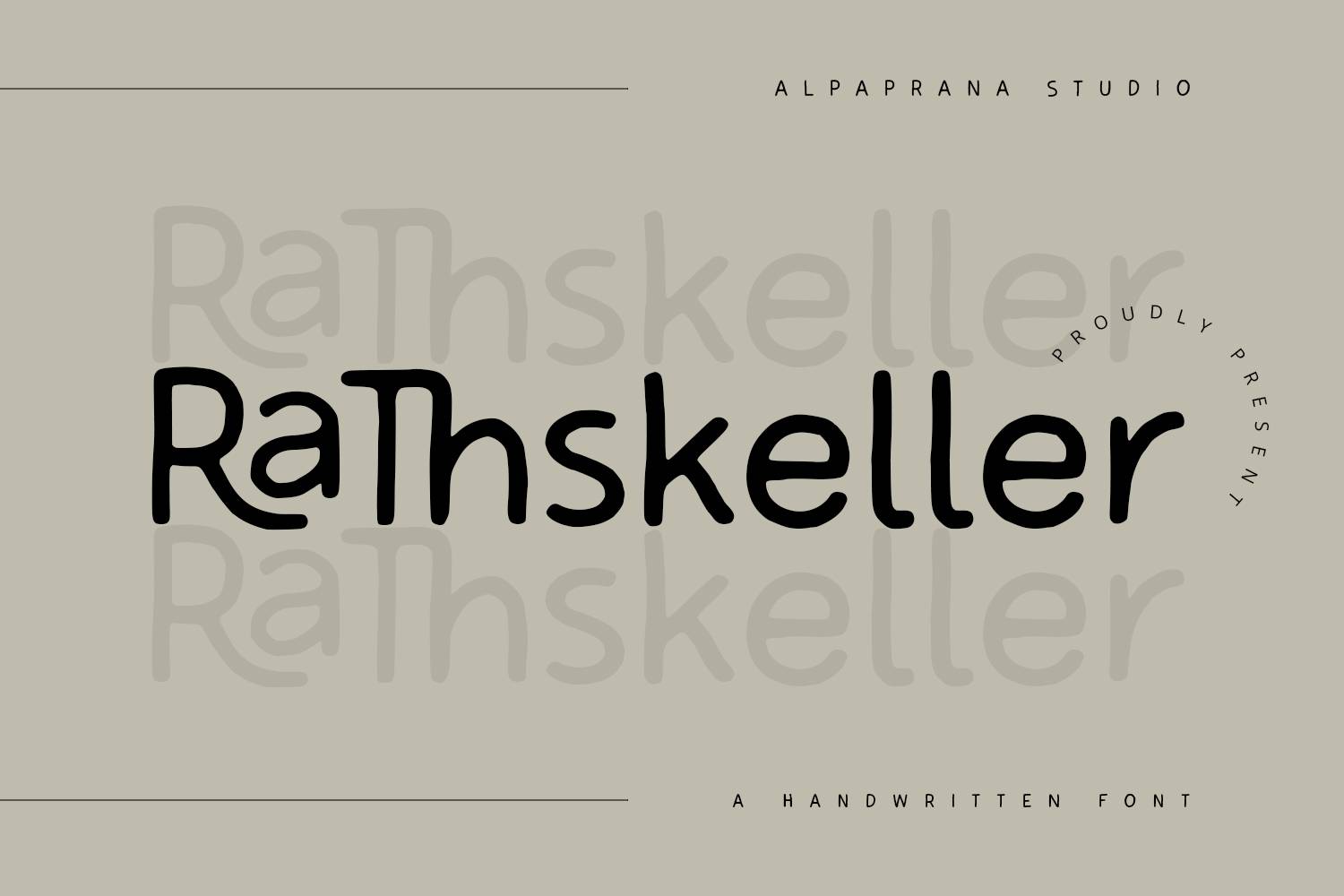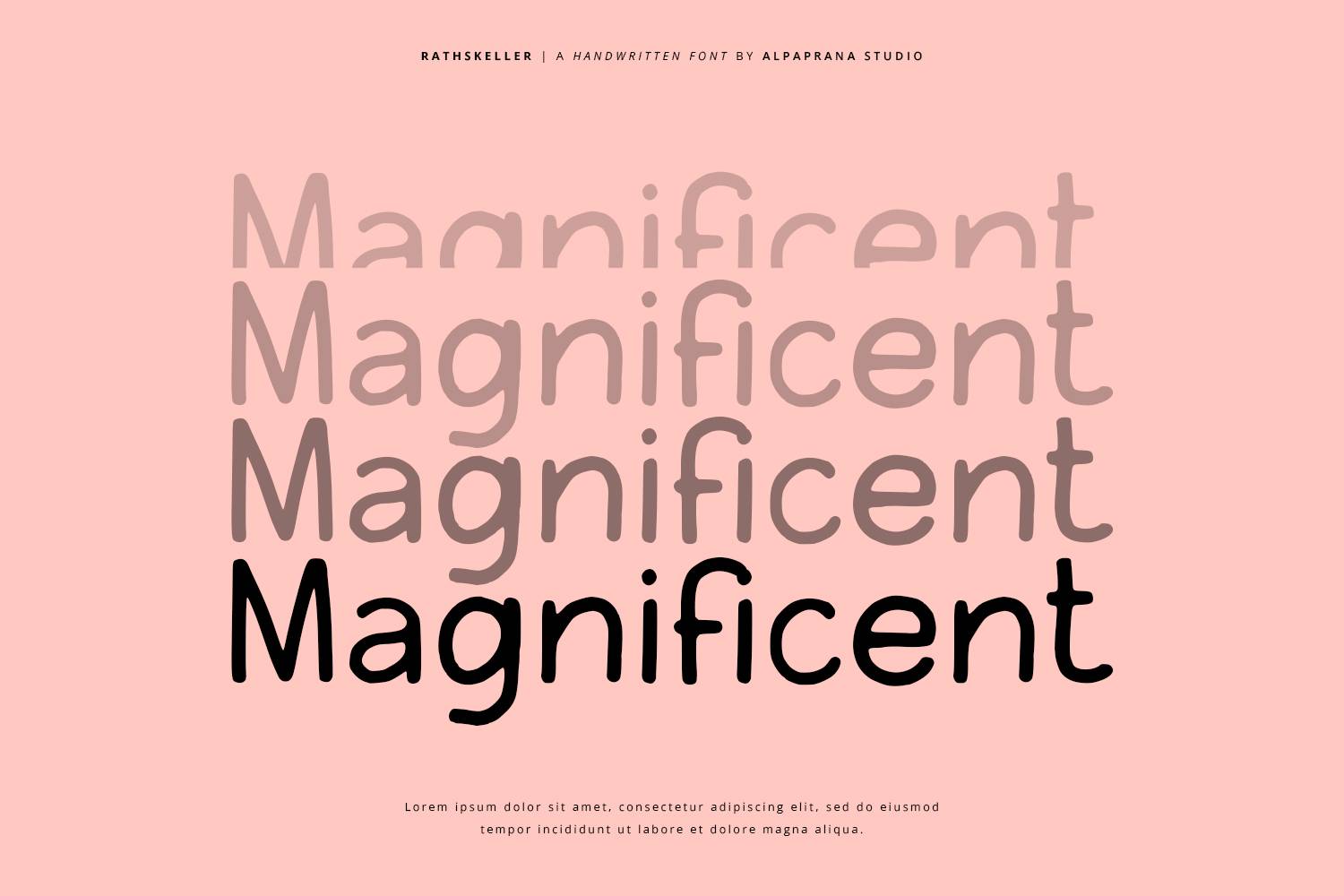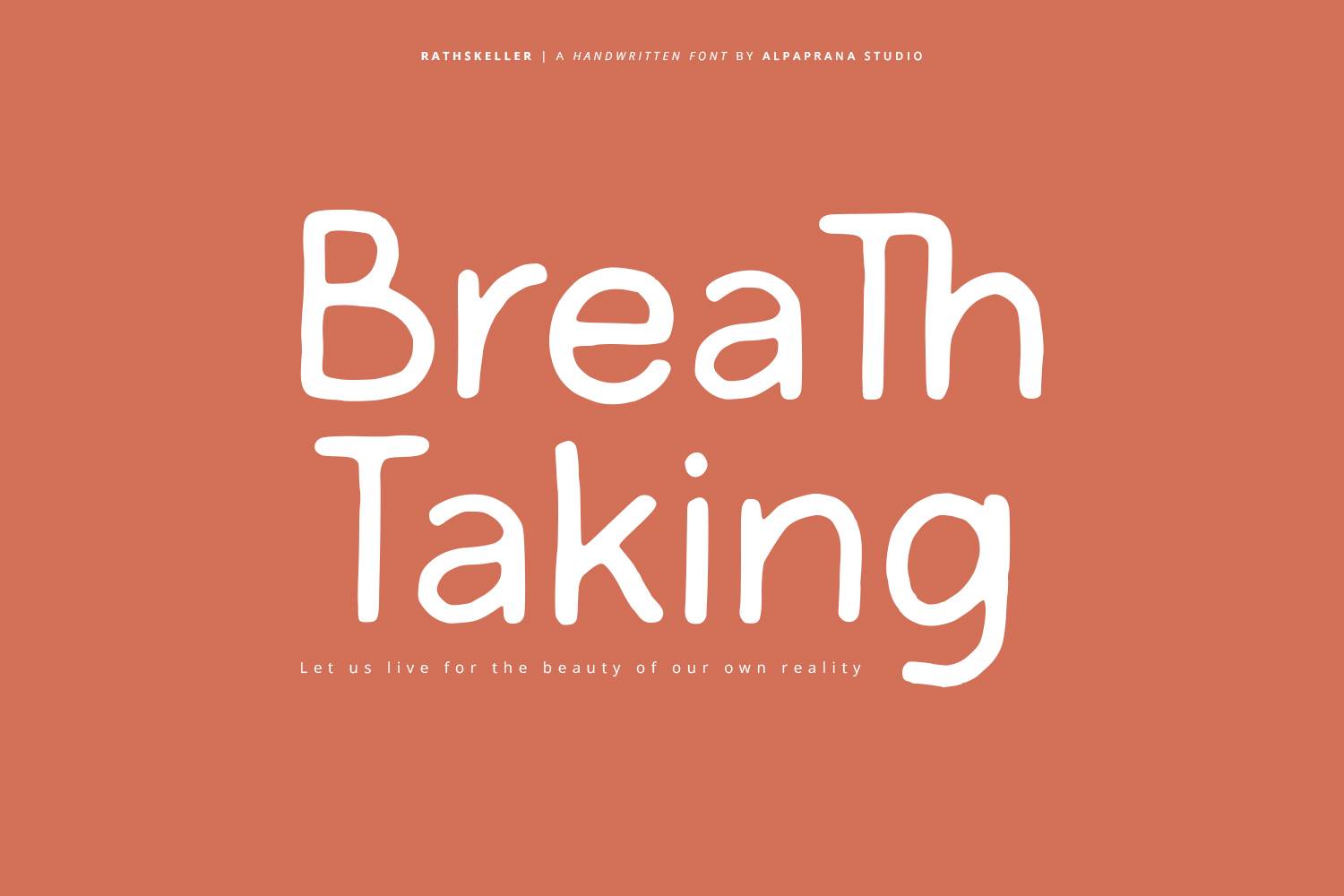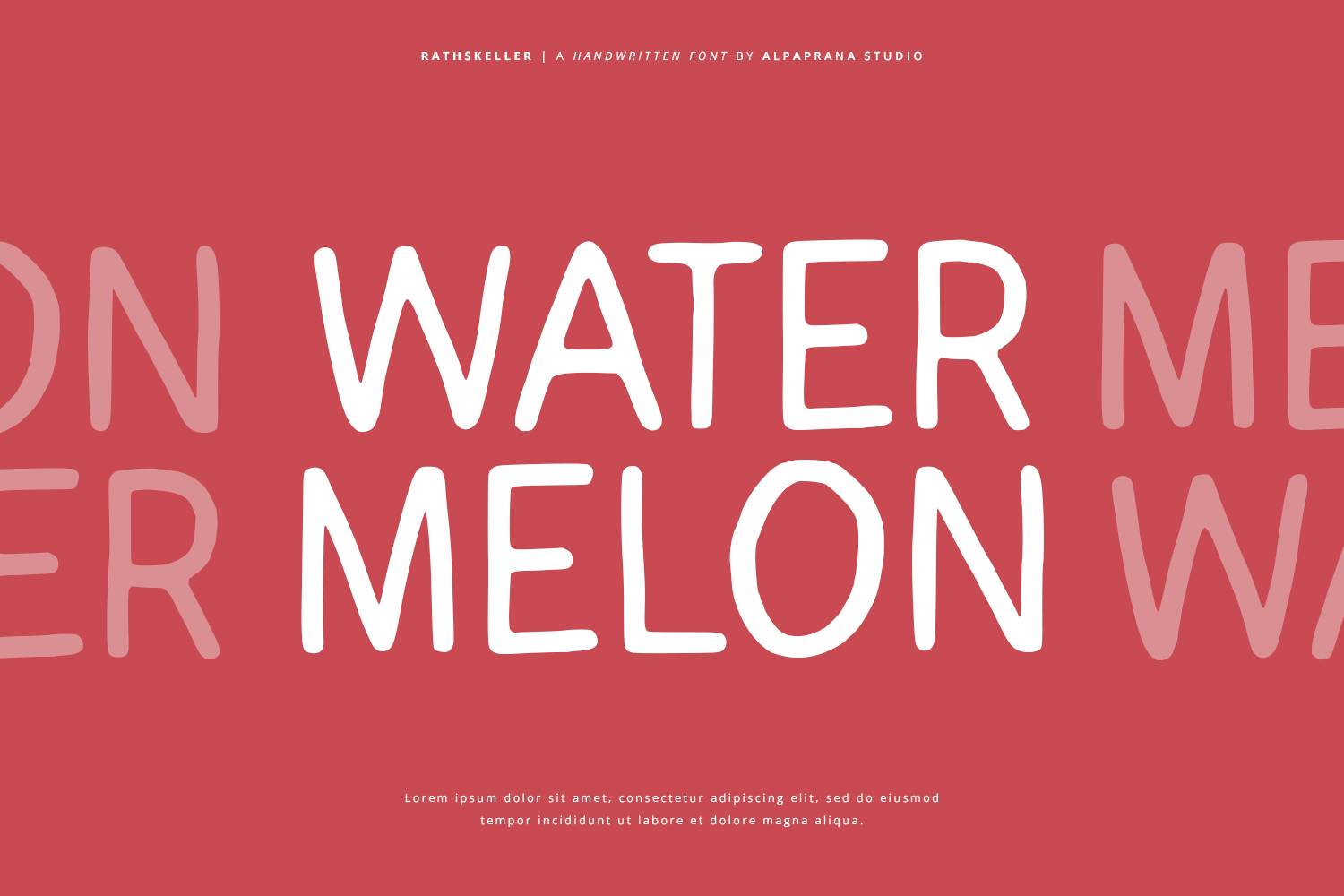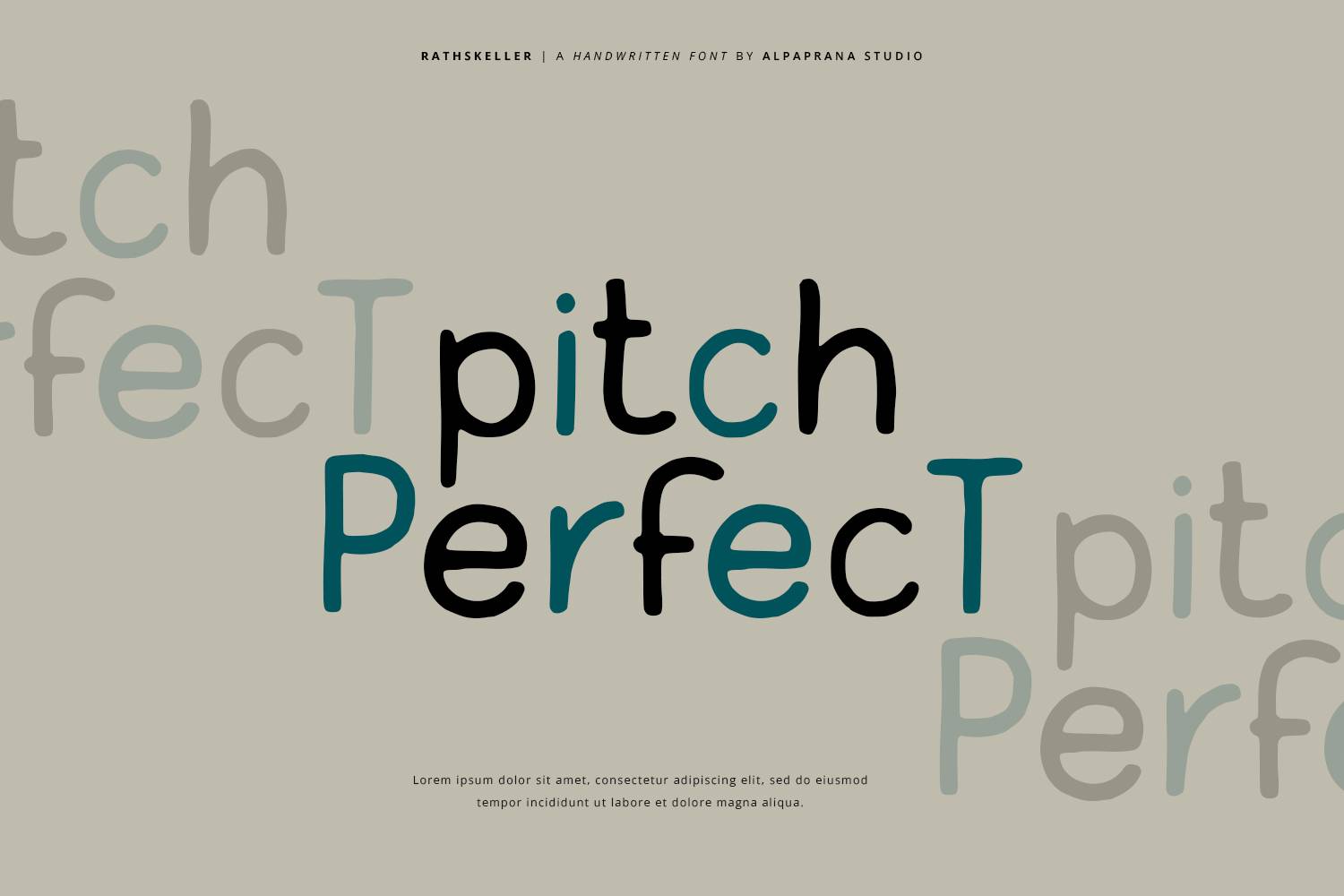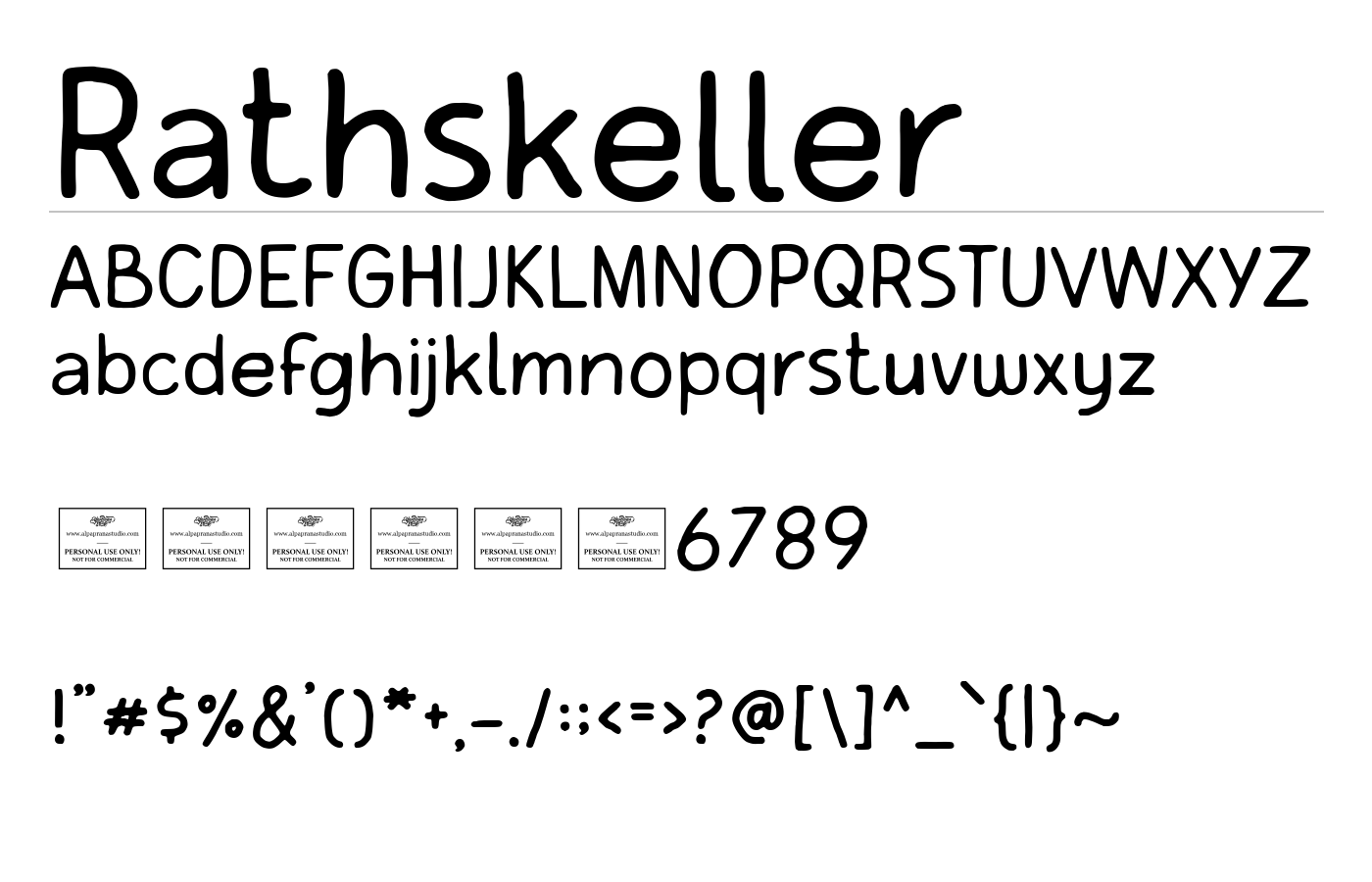
Rathskeller is a casual, hand-drawn sans serif font with a friendly and approachable feel, featuring slightly irregular letterforms and a warm, organic touch. Its moderate weight and open, airy spacing make it ideal for informal and creative designs such as children's books, playful branding, and quirky headlines where a personal, human touch is desired. This font works well when you want to convey friendliness and creativity without sacrificing readability.
Rathskeller Font
About Rathskeller Font